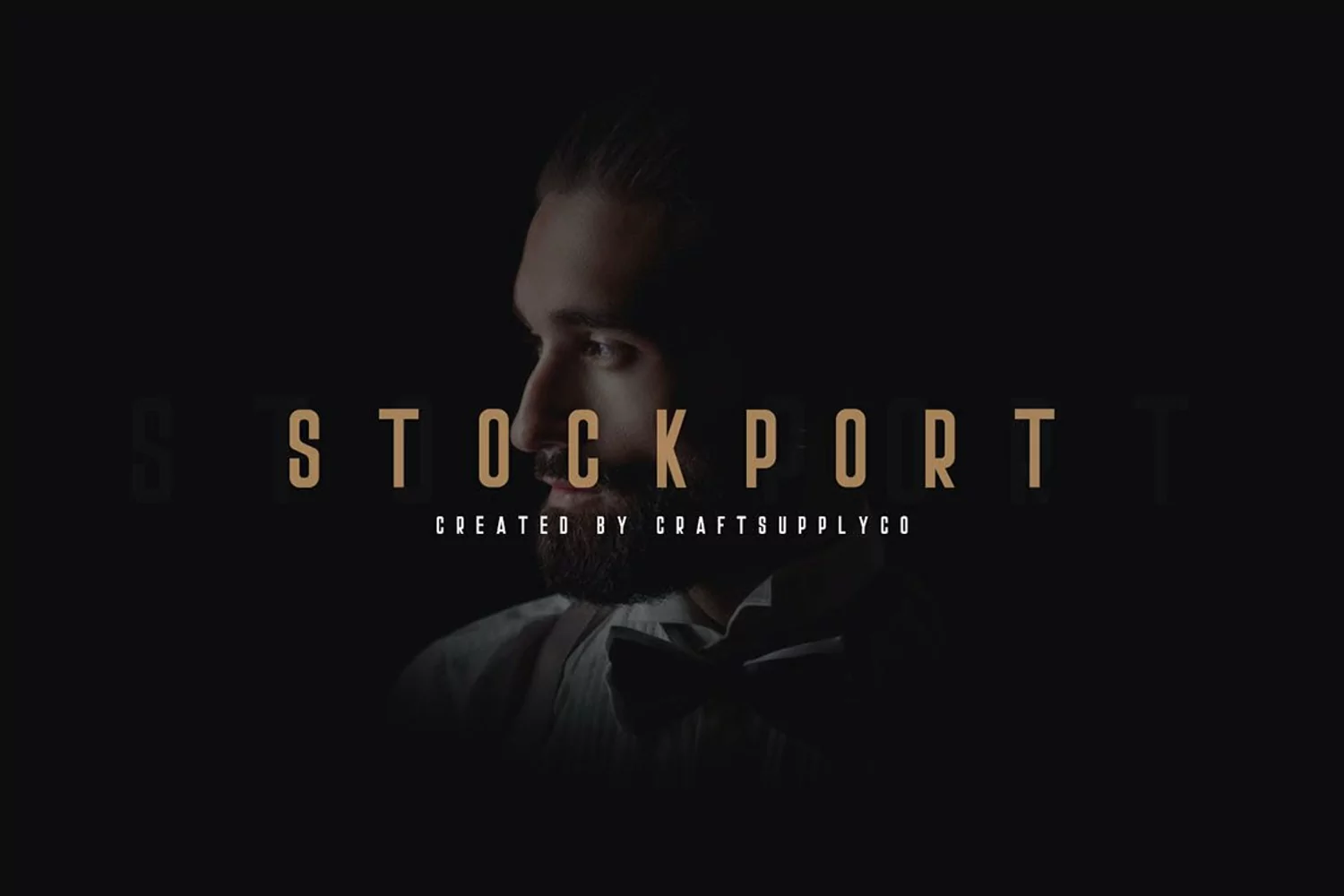
Stockport - A Multi-layer Font & Bonus Logo
The Stockport font has a great variety of fonts included in this download as well as bonus logo designs. You get the basic bold font, a shadowed font, an outlined font and a double outlined font, too. That is one sweet collection for you. The Stockport font is incredibly versatile and will pair up splendidly with other fonts.